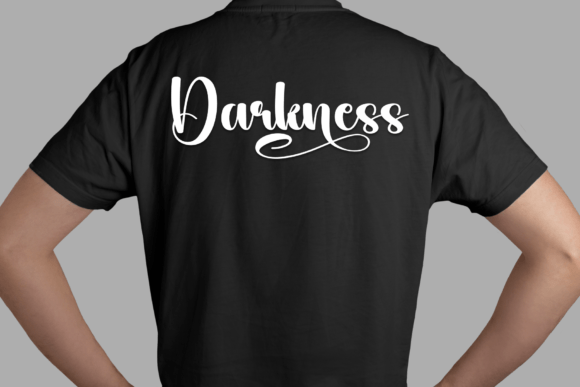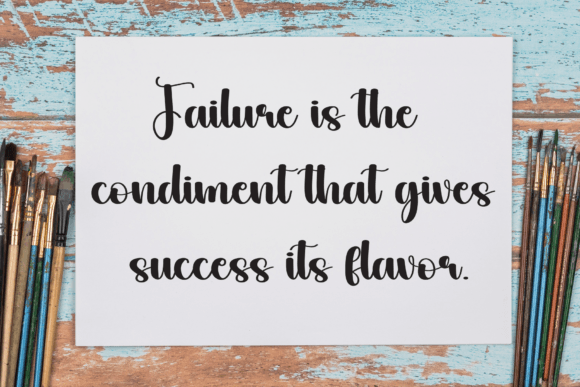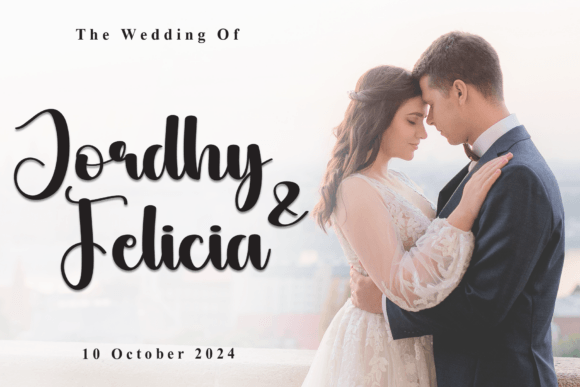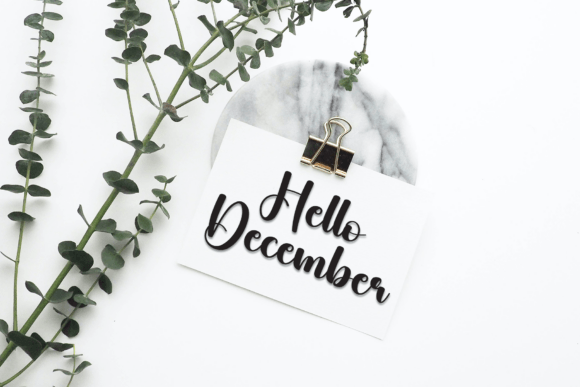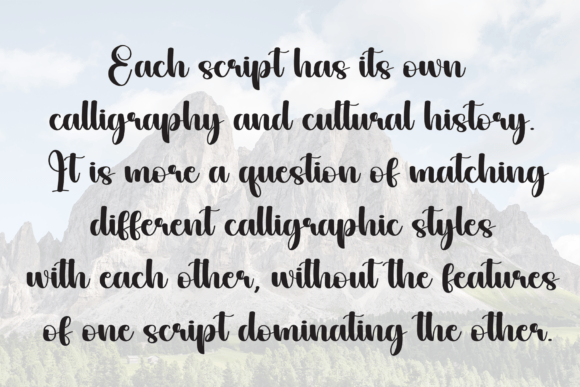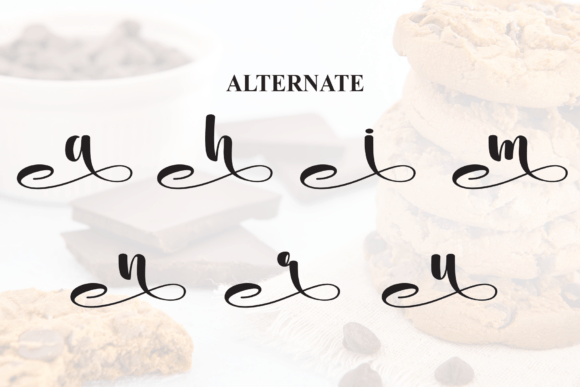
Cookies Font: The Perfect Blend of Whimsy and Charm
Are you on the hunt for a font that embodies the essence of joy and friendliness? Look no further than ‘Cookies’, a delightful handcrafted display font that is sure to capture your heart. With its playful spirit and charming demeanor, ‘Cookies’ is the perfect match for a variety of design projects, from wedding invites to greeting cards, and beyond.
The Story Behind Cookies Font
‘Cookies’ is more than just a font – it’s an experience. Crafted with love and attention to detail, this font is designed to bring a dash of whimsy to your designs. Whether you’re a seasoned designer or a crafty DIY enthusiast, ‘Cookies’ is sure to inspire your creativity and help you bring your most imaginative concepts to life.
What Makes Cookies Font So Special?
So, what sets ‘Cookies’ apart from other fonts? Here are just a few reasons why this font is a cut above the rest:
- Handcrafted with love: ‘Cookies’ is a carefully crafted font that is imbued with a sense of personality and charm. Each letter has been meticulously designed to ensure that it is both beautiful and functional.
- Playful spirit: ‘Cookies’ is a font that is full of life and energy. Its playful spirit makes it perfect for designs that require a dash of whimsy and fun.
- Versatile: Whether you’re designing a wedding invitation, a greeting card, or a blog post, ‘Cookies’ is a versatile font that can be used for a wide range of projects.
- Easy to read: Despite its playful nature, ‘Cookies’ is a font that is easy to read, making it perfect for both digital and print designs.
Using Cookies Font in Your Designs
So, how can you use ‘Cookies’ in your designs? Here are a few ideas to get you started:
- Wedding invitations: ‘Cookies’ is a perfect font for wedding invitations, adding a touch of whimsy and romance to your designs.
- Greeting cards: Whether you’re designing a birthday card or a get-well card, ‘Cookies’ is a great font to use.
- Blog posts: Add a dash of personality to your blog posts with ‘Cookies’, a font that is sure to make your content stand out.
- Social media graphics: ‘Cookies’ is a great font to use for social media graphics, adding a touch of fun and whimsy to your designs.
Tips for Getting the Most Out of Cookies Font
Here are a few tips for getting the most out of ‘Cookies’ font:
- Experiment with different sizes: ‘Cookies’ is a font that can be used at a variety of sizes, from large headings to smaller body text.
- Pair it with other fonts: ‘Cookies’ can be paired with other fonts to create a unique and interesting design.
- Use it sparingly: While ‘Cookies’ is a beautiful font, it can be overwhelming if used too much. Use it sparingly to add a touch of whimsy to your designs.
In conclusion, ‘Cookies’ is a delightful handcrafted display font that is sure to bring a dash of joy and whimsy to your designs. With its playful spirit and charming demeanor, ‘Cookies’ is the perfect match for a variety of design projects. So why not give it a try and see for yourself why ‘Cookies’ is a font that truly brings your whimsical concepts to life!
‘Cookies’ font is a beautiful and charming font that is sure to bring a touch of whimsy to your designs. With its playful spirit and versatility, ‘Cookies’ is a font that can be used for a wide range of projects. So why not give it a try and see for yourself why ‘Cookies’ is a font that truly brings your whimsical concepts to life!